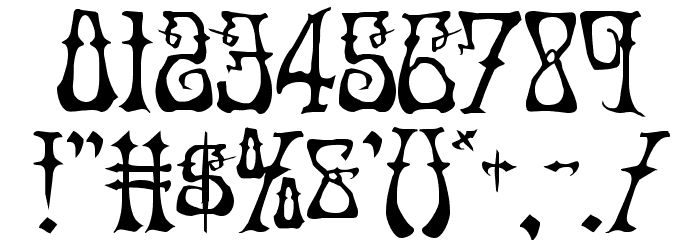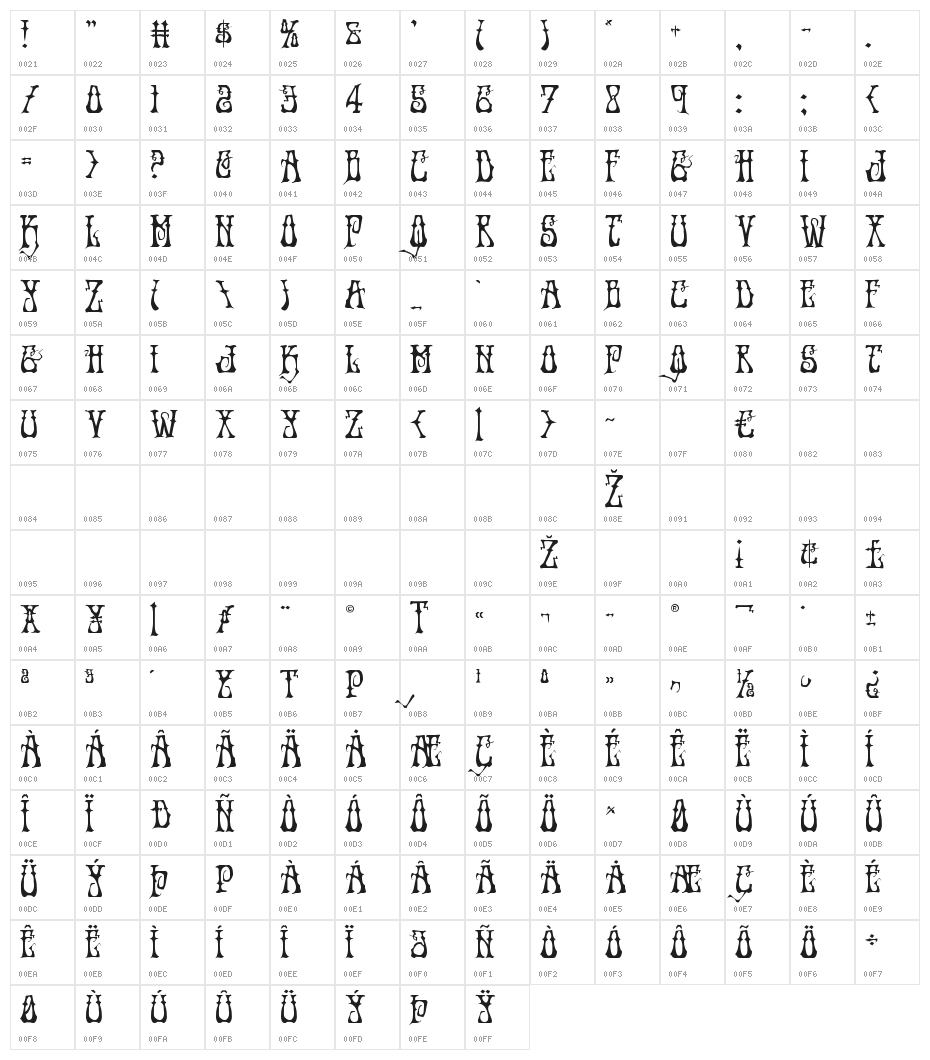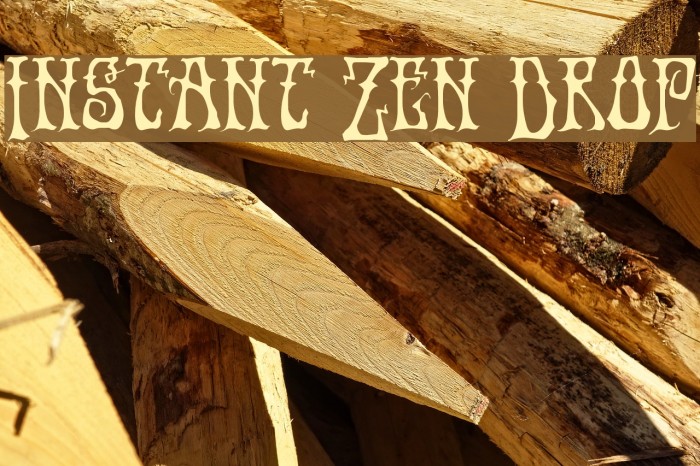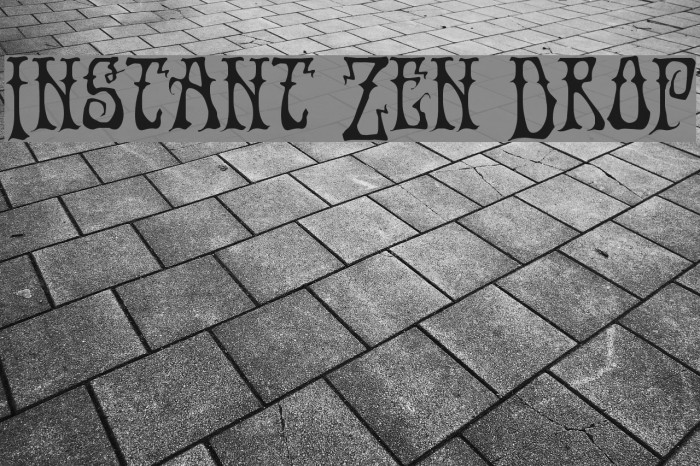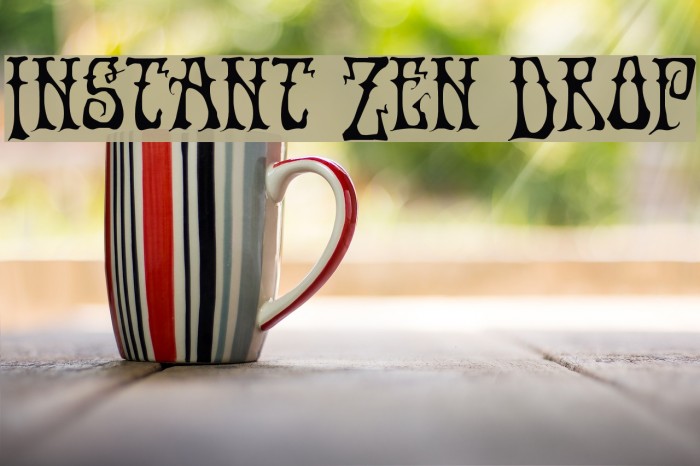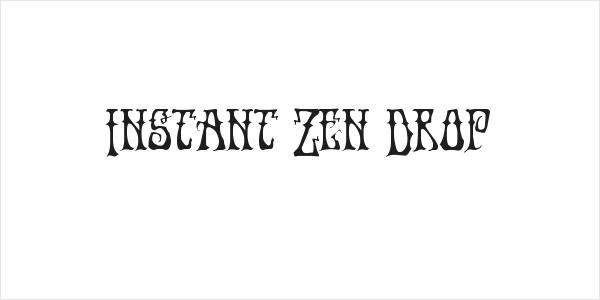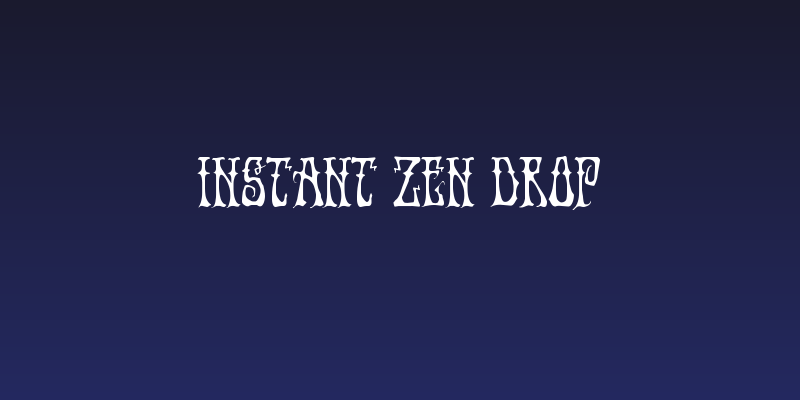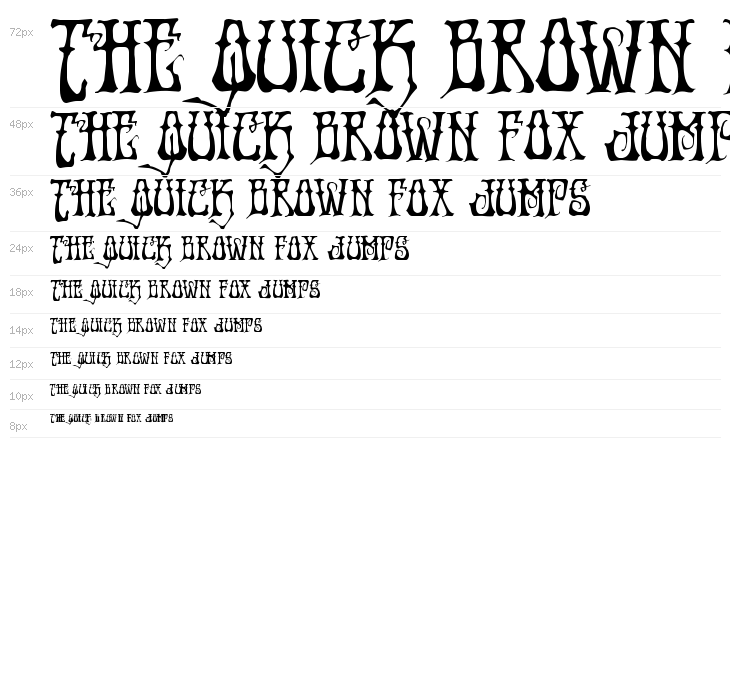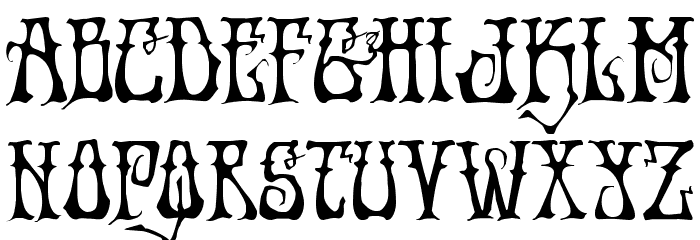
Instant Zen Drop Font
Instant Zen Drop Description
This font features a highly decorative and intricate style, characterized by its bold and artistic letterforms. Each character is adorned with unique flourishes and embellishments, creating a sense of movement and dynamism. The uppercase and lowercase letters maintain a consistent design theme, with exaggerated serifs and swirling elements that evoke a sense of whimsy and creativity. The numerals and special characters are equally ornate, ensuring a cohesive look across all text elements. This font's distinctiveness makes it ideal for projects that require a strong visual impact.
| Proposed Projects | Ideal for use in posters, album covers, branding, and any design project that seeks to make a bold statement. |